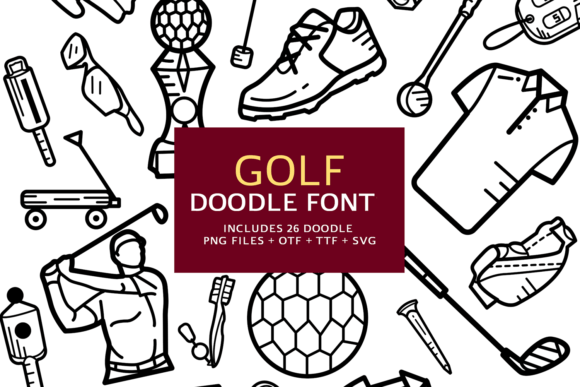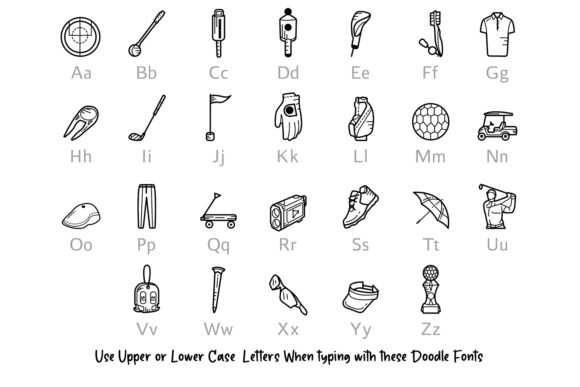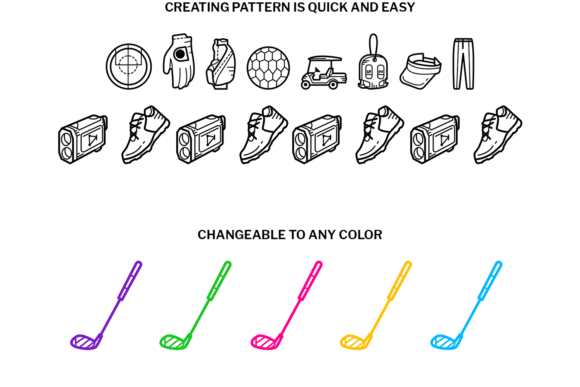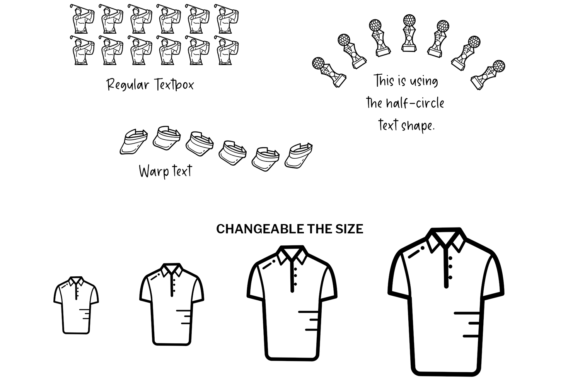
Golf Doodle Font
About the Golf Doodle Font
Experience the unique personality of Golf Doodle Font, a font designed for impact. Golf Doodle is a sporty and playful dingbats font that captures the essence of Golf with its whimsical icons and symbols. Each glyph is a unique doodle that represents a different aspect of the game, from golf balls and golf carts to various accessories. The characters are bold and dynamic, with a sketchy and hand-drawn quality that adds to its fun and informal vibe. This font is perfect for creating Golf-themed designs, from team logos to posters to merchandise.
Golf Doodle thrives in headlines, logos for golf-related businesses, and playful social media graphics. Its informal nature makes it ideal for short, impactful messages on posters, merchandise, or packaging. However, its highly stylized glyphs and limited character set render it unsuitable for body text or UI elements requiring readability.
The font’s bold and playful personality pairs well with clean sans-serif fonts like Open Sans for body copy, providing a strong contrast. For a more sophisticated feel, consider pairing it with a classic serif like Playfair Display for a headline/body combination. Alternatively, a geometric sans-serif such as Montserrat could add a touch of modern sleekness.
Golf Doodle’s whimsical energy best suits brands focusing on fun, approachable, and lighthearted aspects of golf, such as junior golf programs or quirky golf-themed apparel.
Golf Doodle Font Example